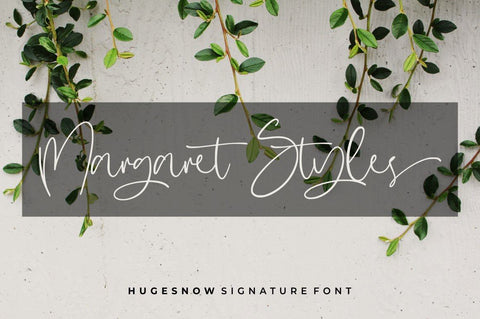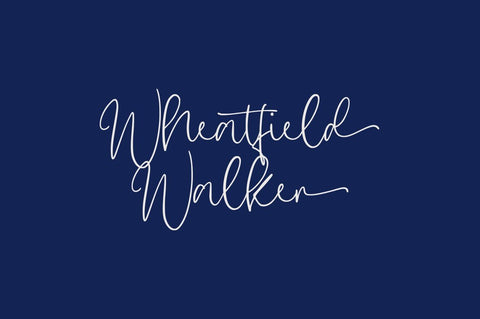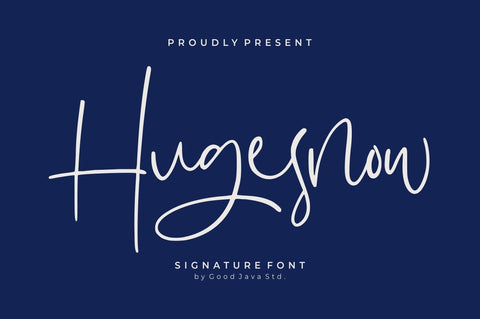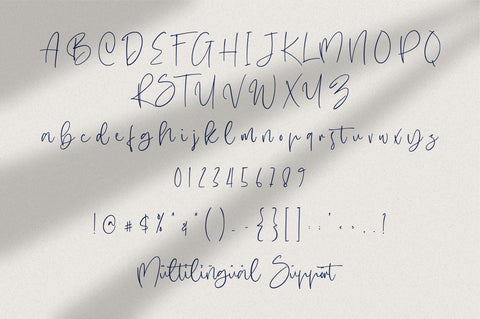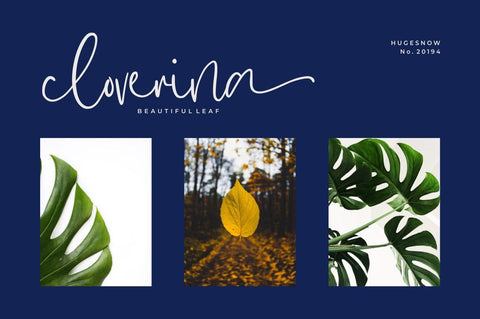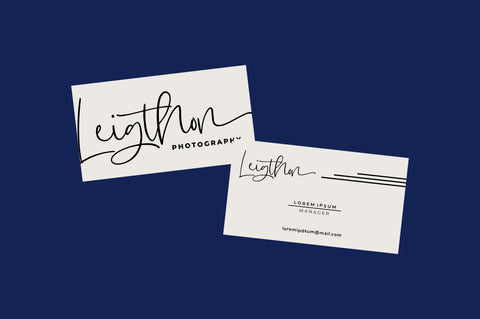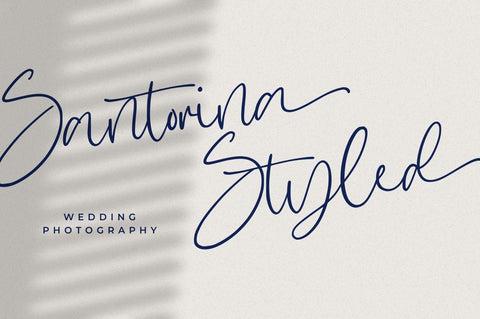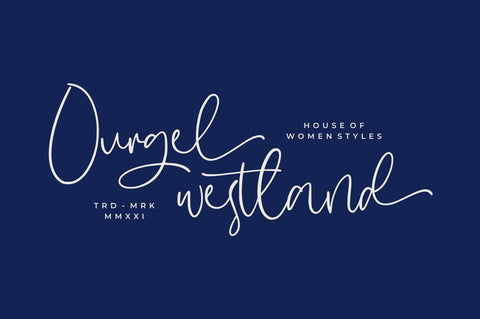
Hugesnow – Signature Font
Hugesnow – Signature font is a natural & modern handwritten font. I’ts Perfect for logo, invitation, stationery, wedding designs, social media posts, advertisements, product packaging, product designs, label, photography, watermark, special events or anything. This font include : Hugesnow OTF-TTF-WOFF, Ligatures, and also Multilingual support.
- Very great for branding, logotype, handletteing, invitations, or fashion branding.